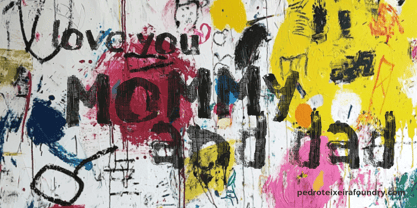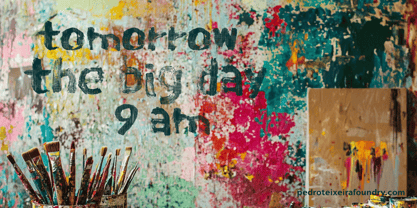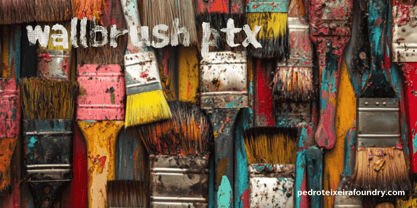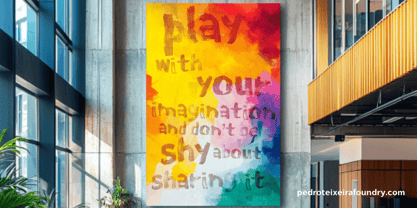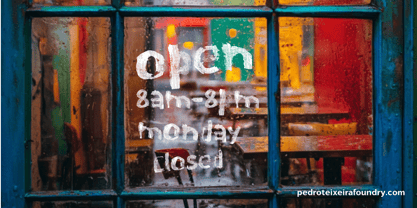
Wall Brush PTx
by Pedro Teixeira
The Wall Brush PTx Font Family was designed by Pedro Teixeira and published by Pedro Teixeira. Wall Brush PTx contains 1 styles. More about this family
An inspired wall brush font is a bold, expressive typeface that mimics the raw, dynamic strokes of a brush on a textured wall. It features irregular, hand-painted strokes with natural imperfections, giving it an urban and artistic feel. The letters often have varying thicknesses and rough edges adding to its organic and handcrafted aesthetic. Perfect for street art designs, bold branding, posters, and edgy apparel, this font radiates energy, passion, and creativity, making any text stand out with a raw and authentic vibe.
Designers: Pedro Teixeira
Foundry: Pedro Teixeira